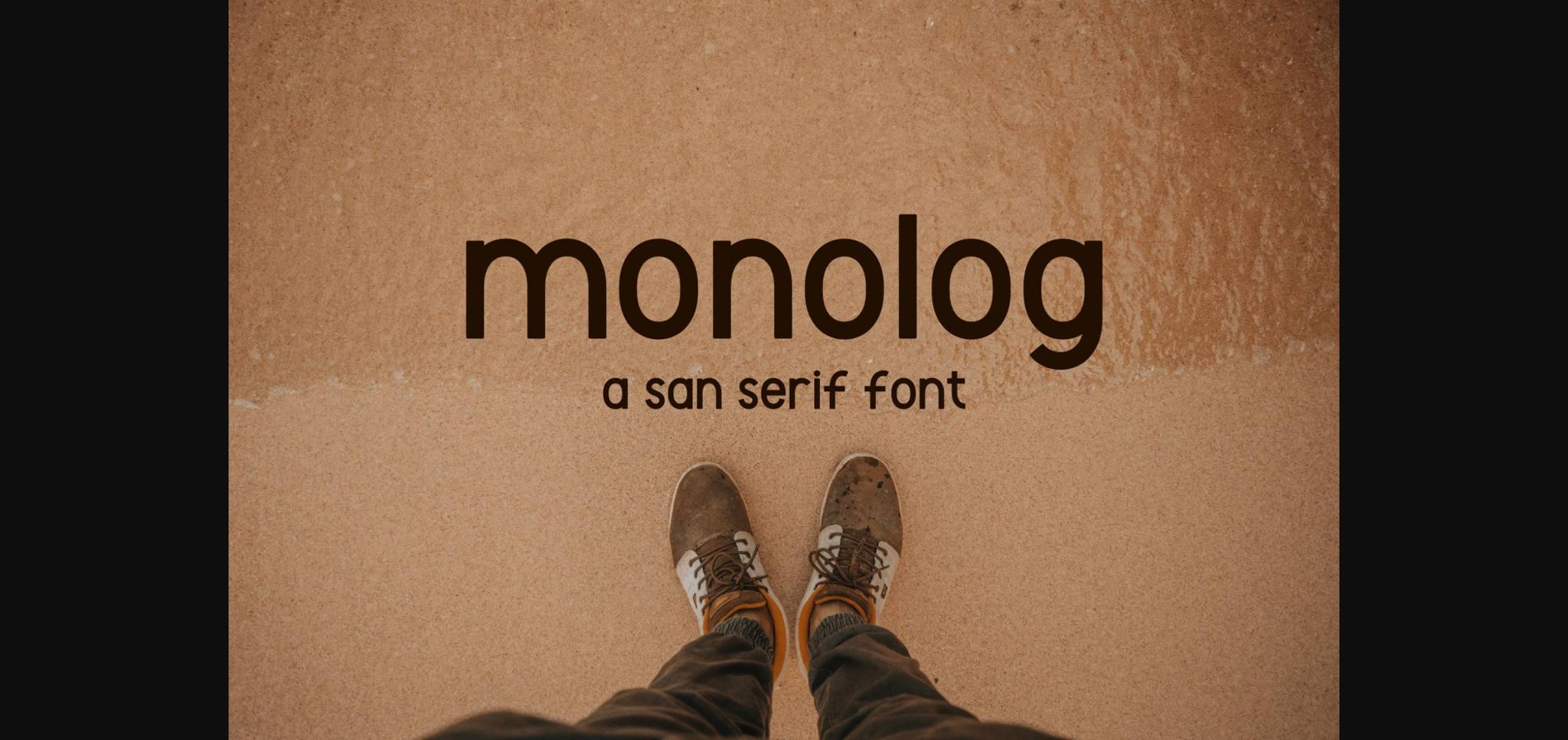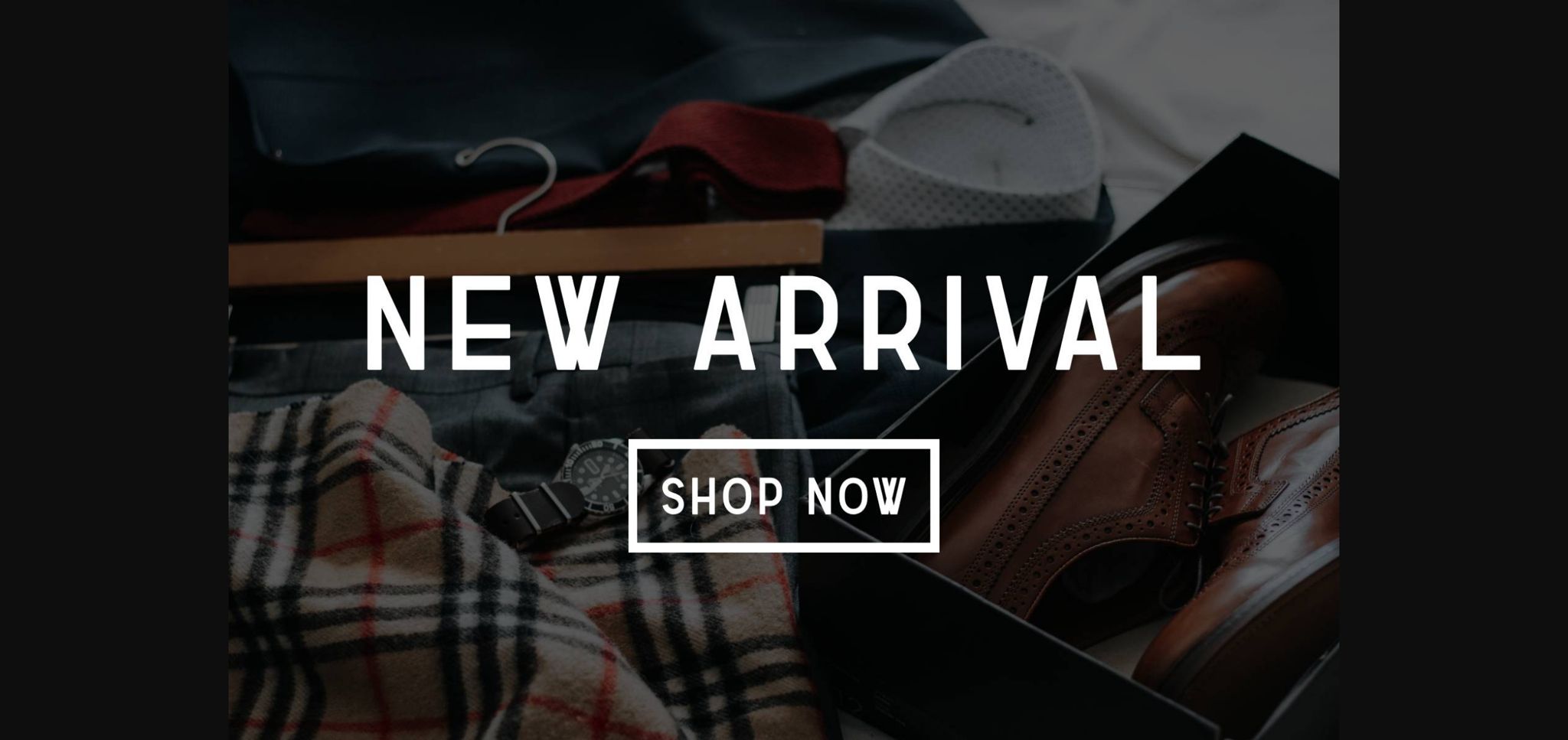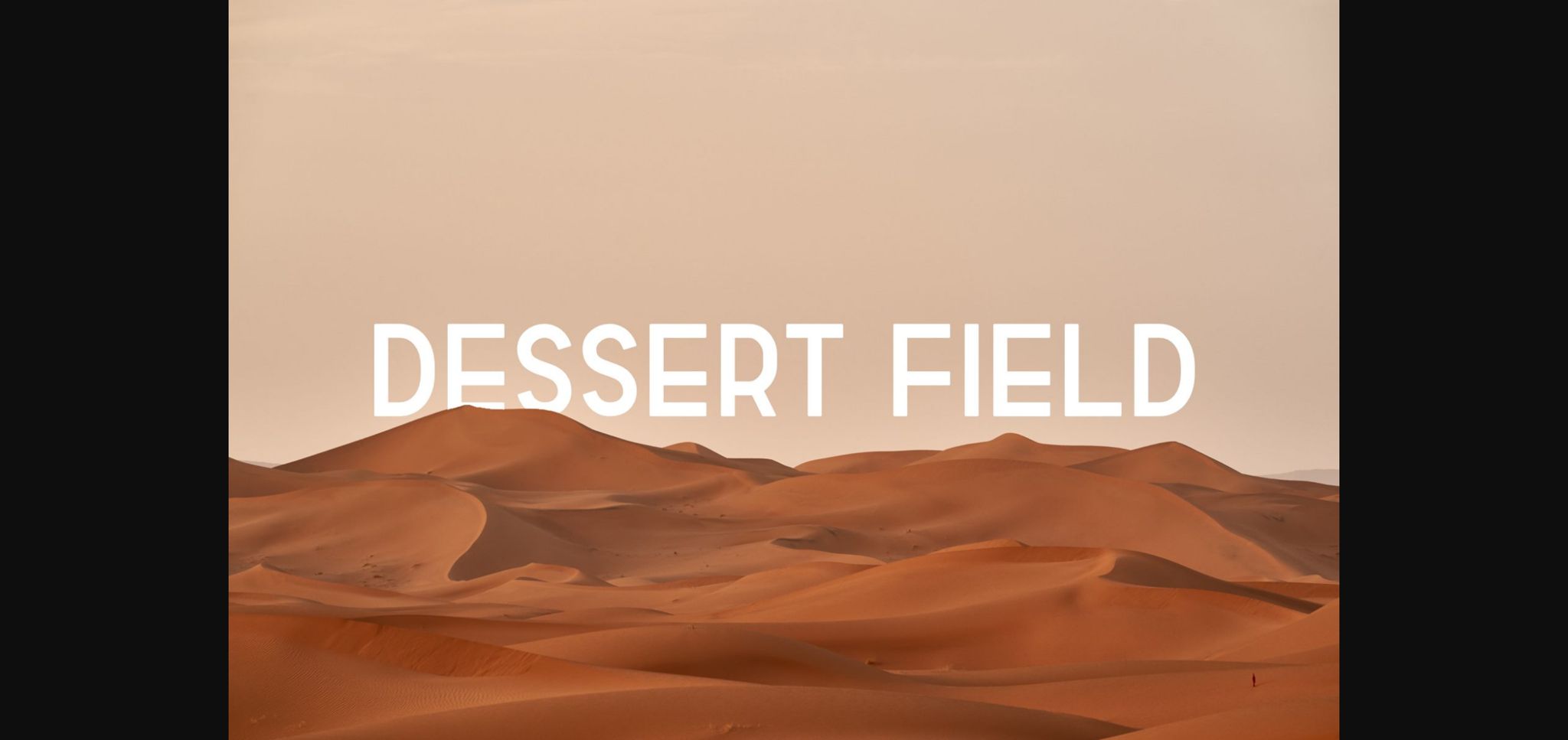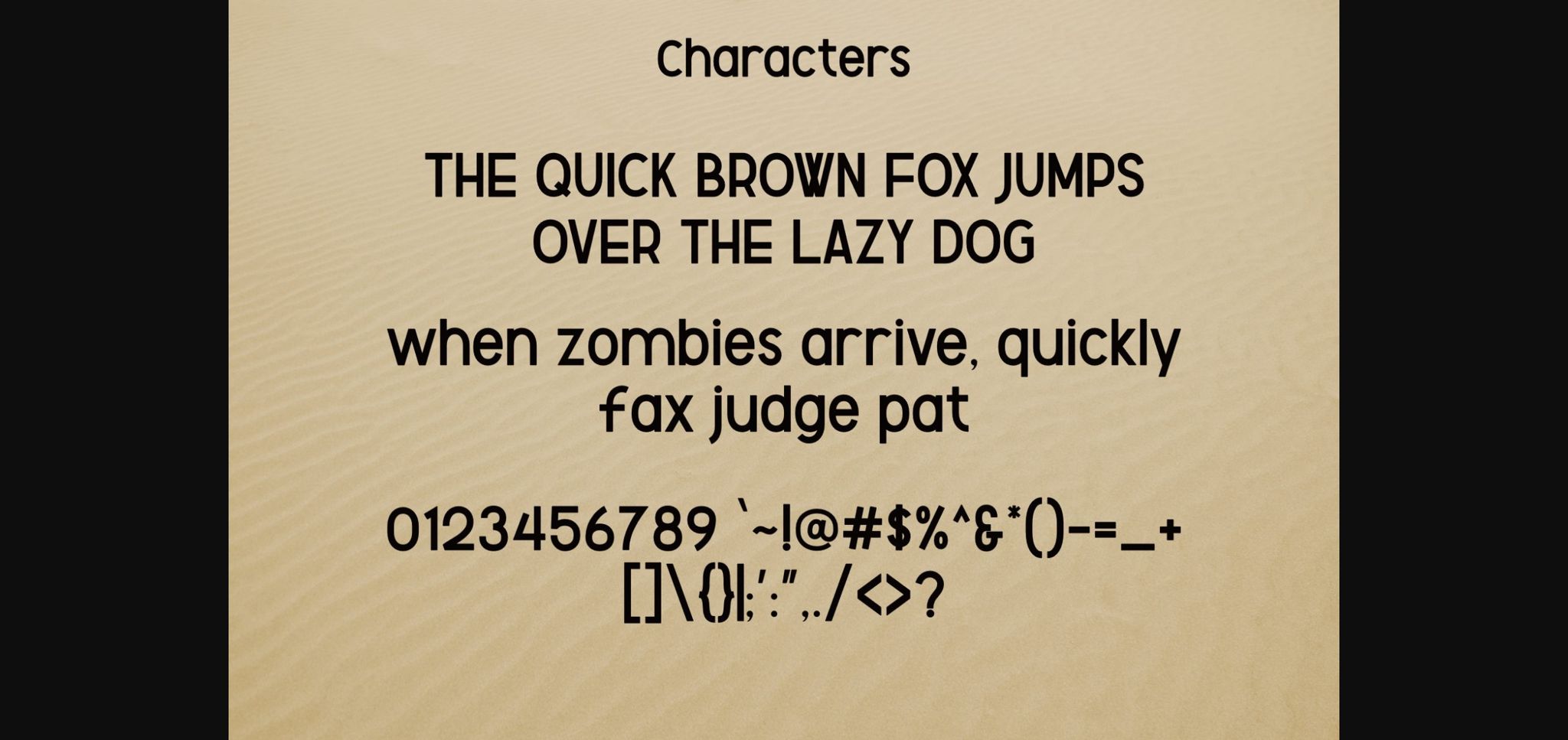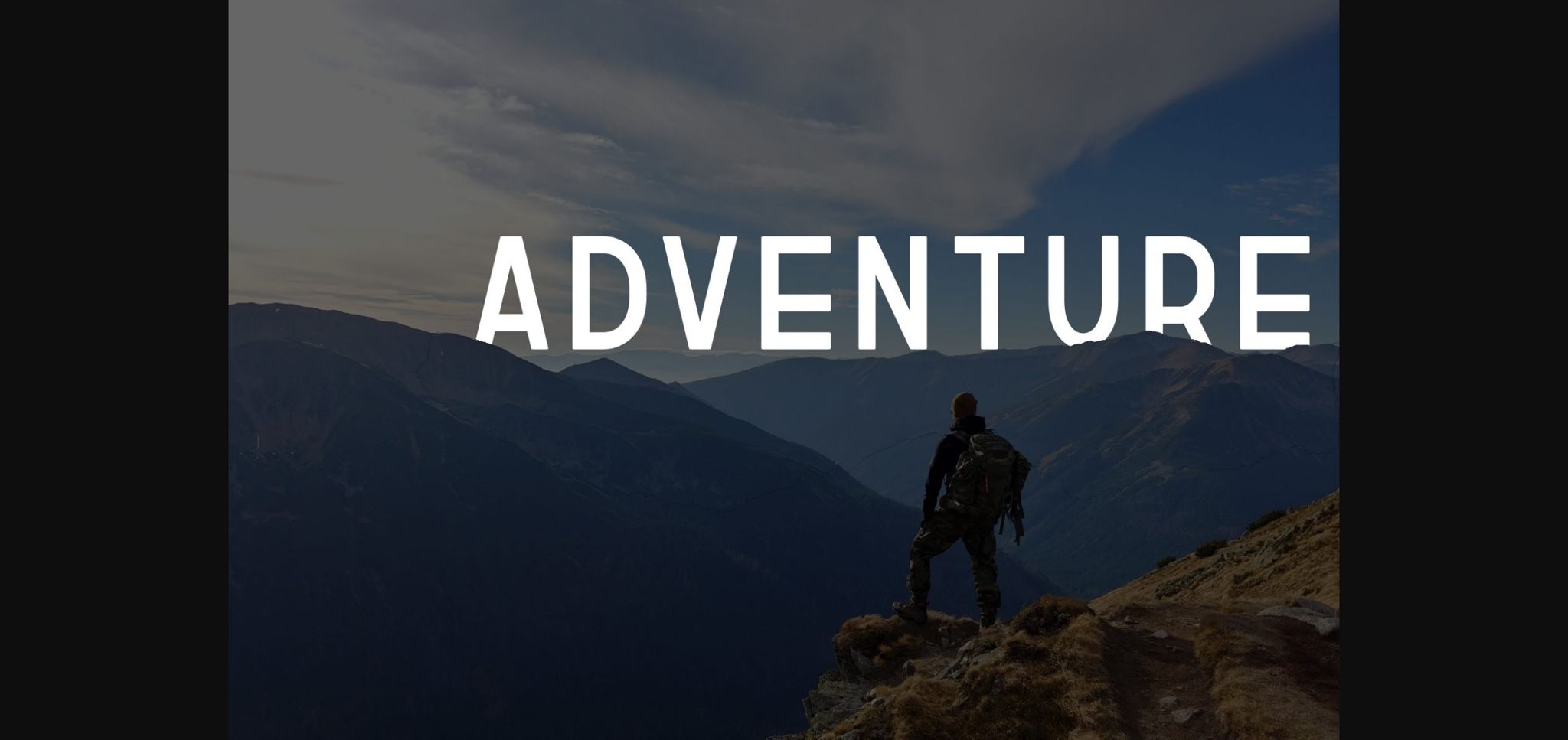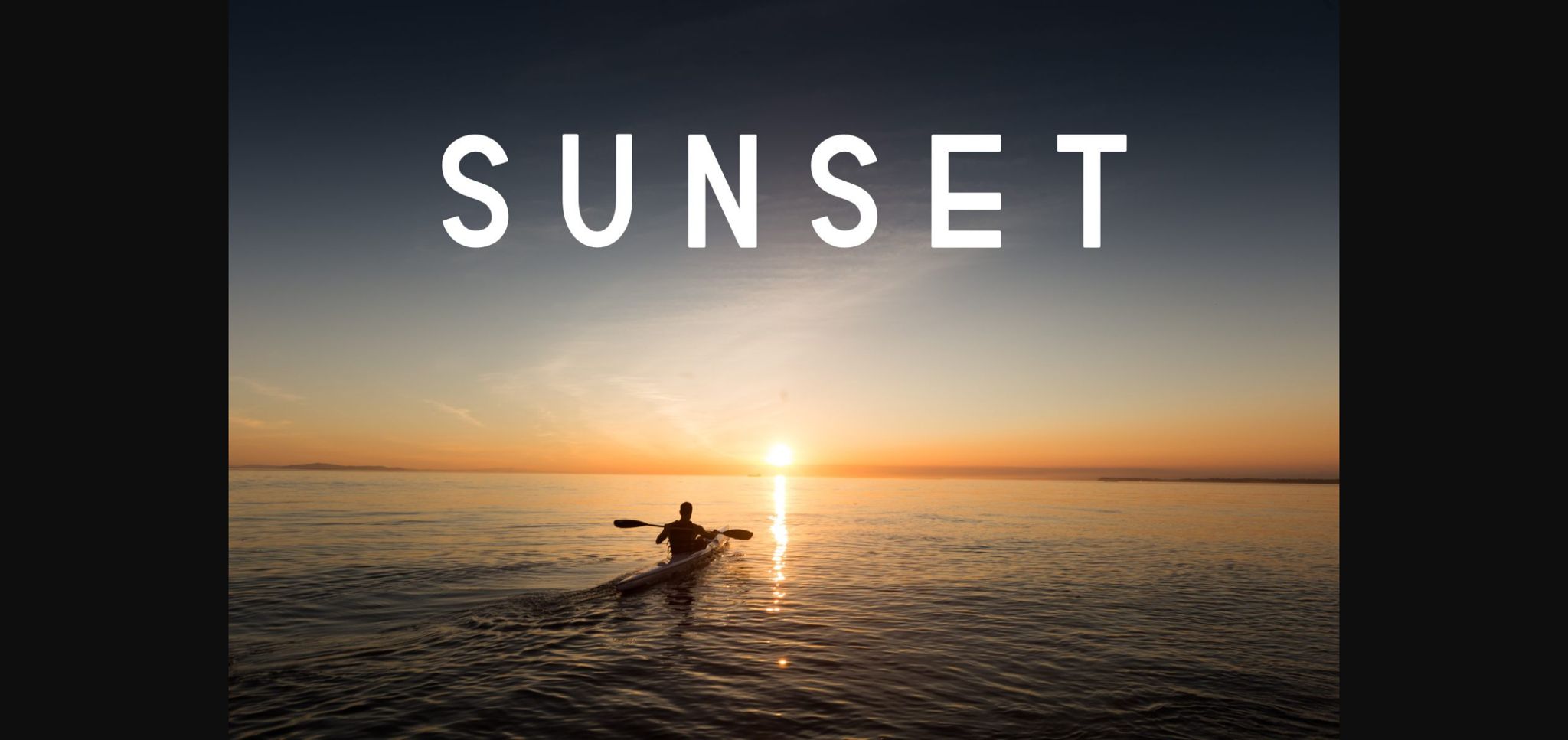
HomeSans Serif FontsMonolog Font Sans Serif Fonts Monolog Font FacebookXPinterestWhatsApp 1 of 8 ... Monolog Font Poster 2... Monolog Font Poster 3... Monolog Font Poster 4... Monolog Font Poster 5... Monolog Font Poster 6... Monolog Font Poster 7... Monolog Font Poster 8... About Monolog Font Monolog is a classic and modern sans serif font with rounded characters. It will deliver any message with clarity and charm. DOWNLOAD NOW People also explored Snowy Christmas Font Fancy Font Kingdom Font Murasaki Sinaira Font Michella Font Kastangel Font Anduaga The Worthed Font 290 0 TagsMonologMonolog Font Previous articleMoule FontNext articleBabet Font LEAVE A REPLY Cancel reply Comment: Please enter your comment! Name:* Please enter your name here Email:* You have entered an incorrect email address! Please enter your email address here Website: Save my name, email, and website in this browser for the next time I comment. Personal Use Free Budmo Personal Use Free Read more about this font Karmatic Arcade Personal Use Free Read more about this font Susanna Personal Use Free Read more about this font Sathscha Personal Use Free Read more about this font BLOG How to Cut Any Font on Cricut: Convert a Font to SVG (Free) Turn any font into a clean SVG so it cuts crisp on Cricut - a quick 3-step workflow using a free font-to-SVG tool. Where to Buy American Fonts Online in 2024 How to Install and Use Fonts on Windows, macOS, and Web Projects Free vs Paid Fonts: Why Investing in Premium Fonts Is Worth It